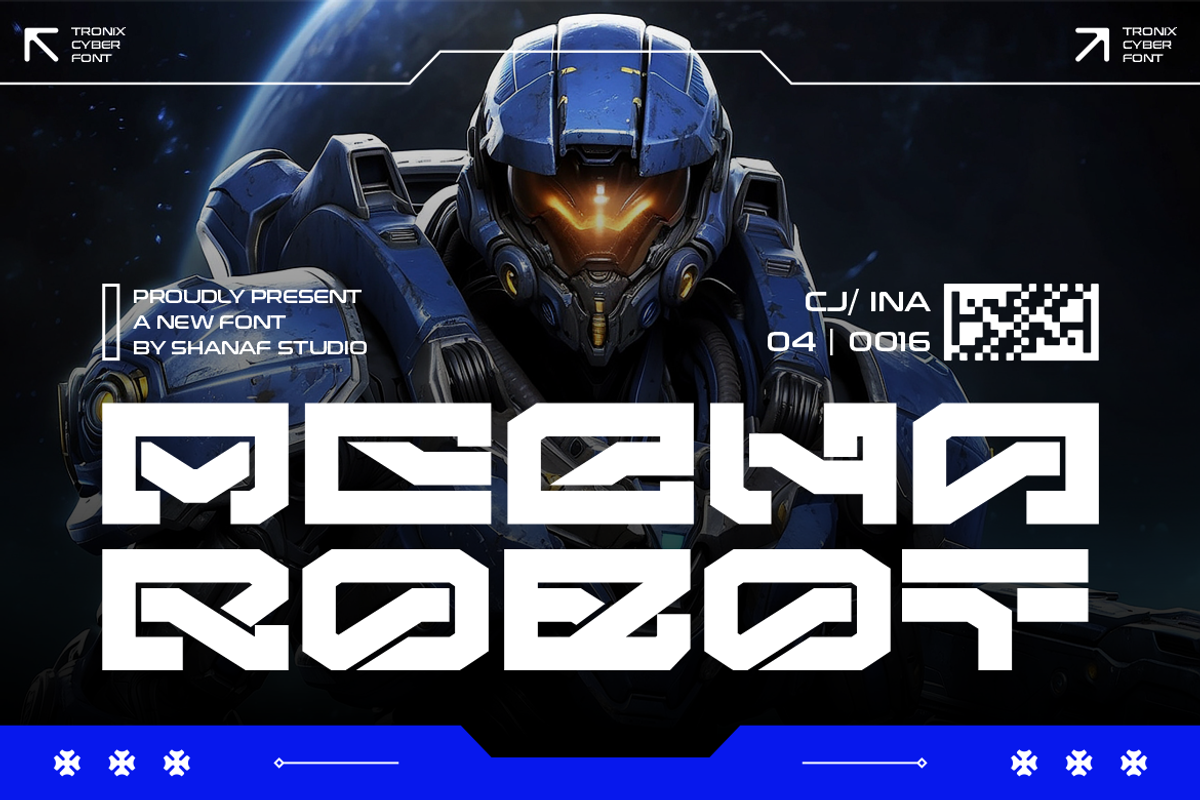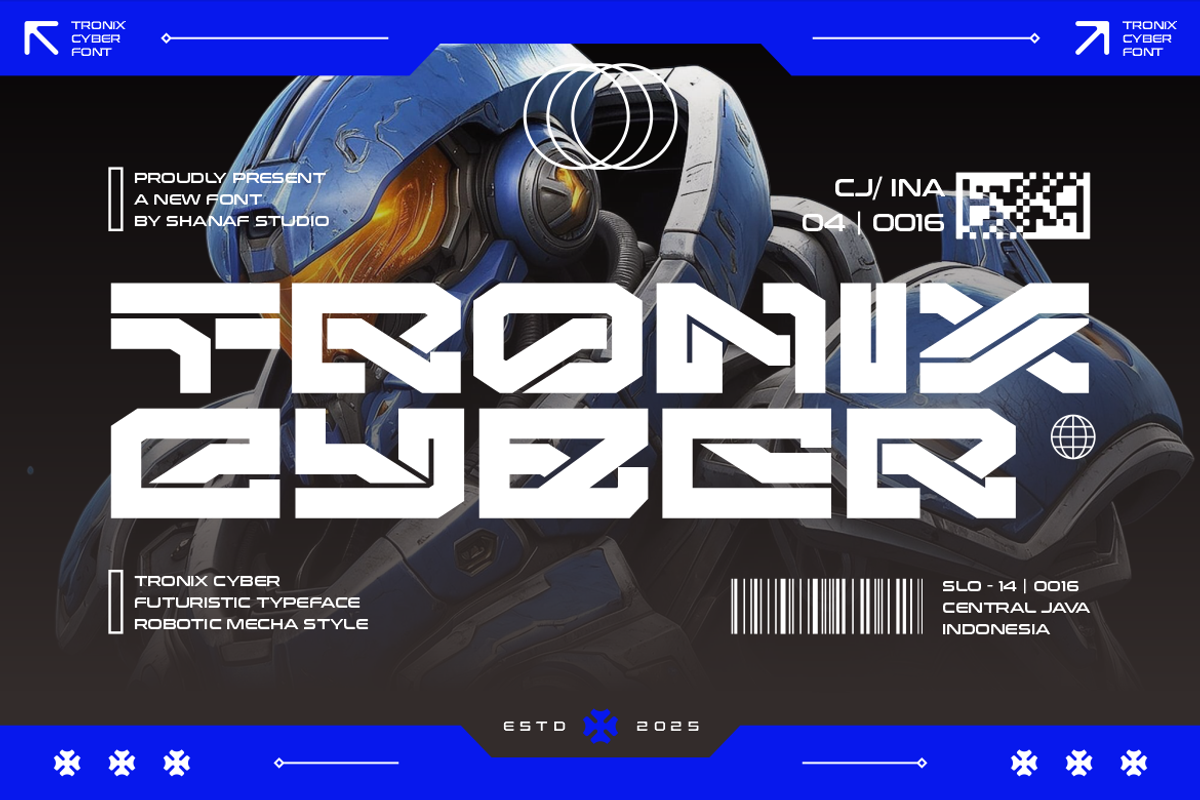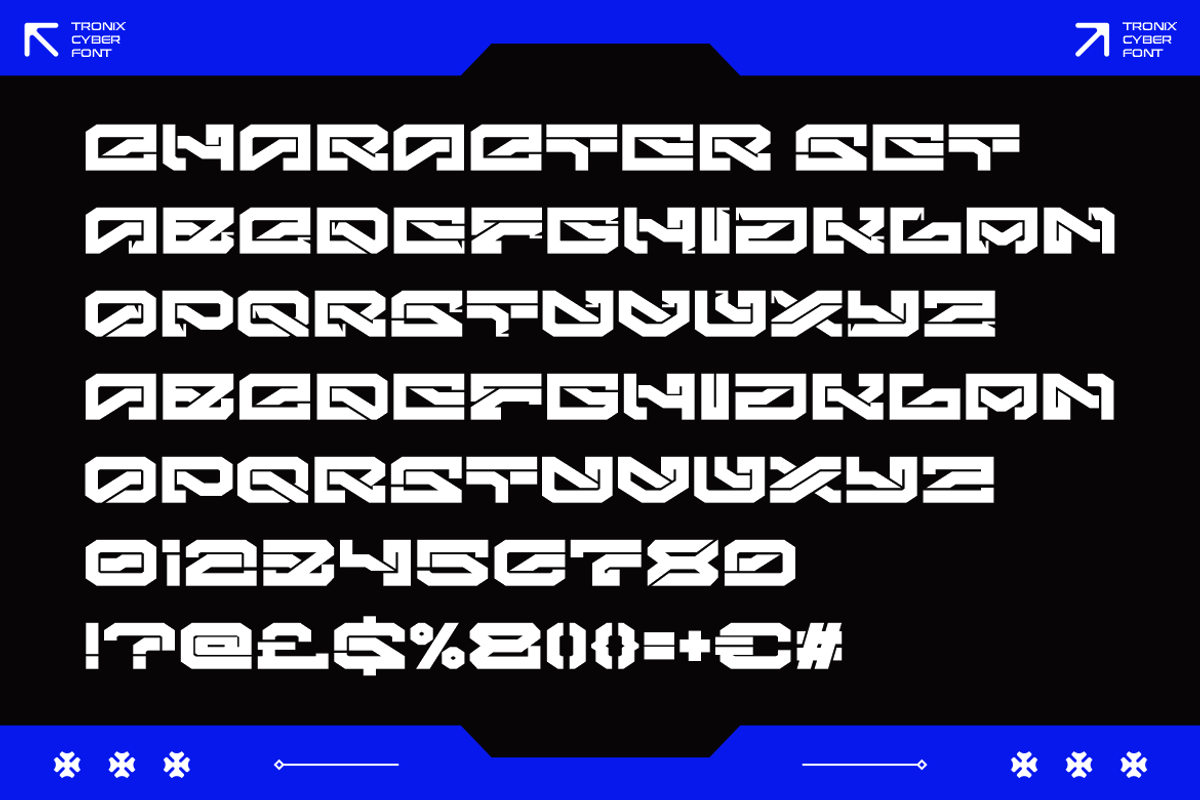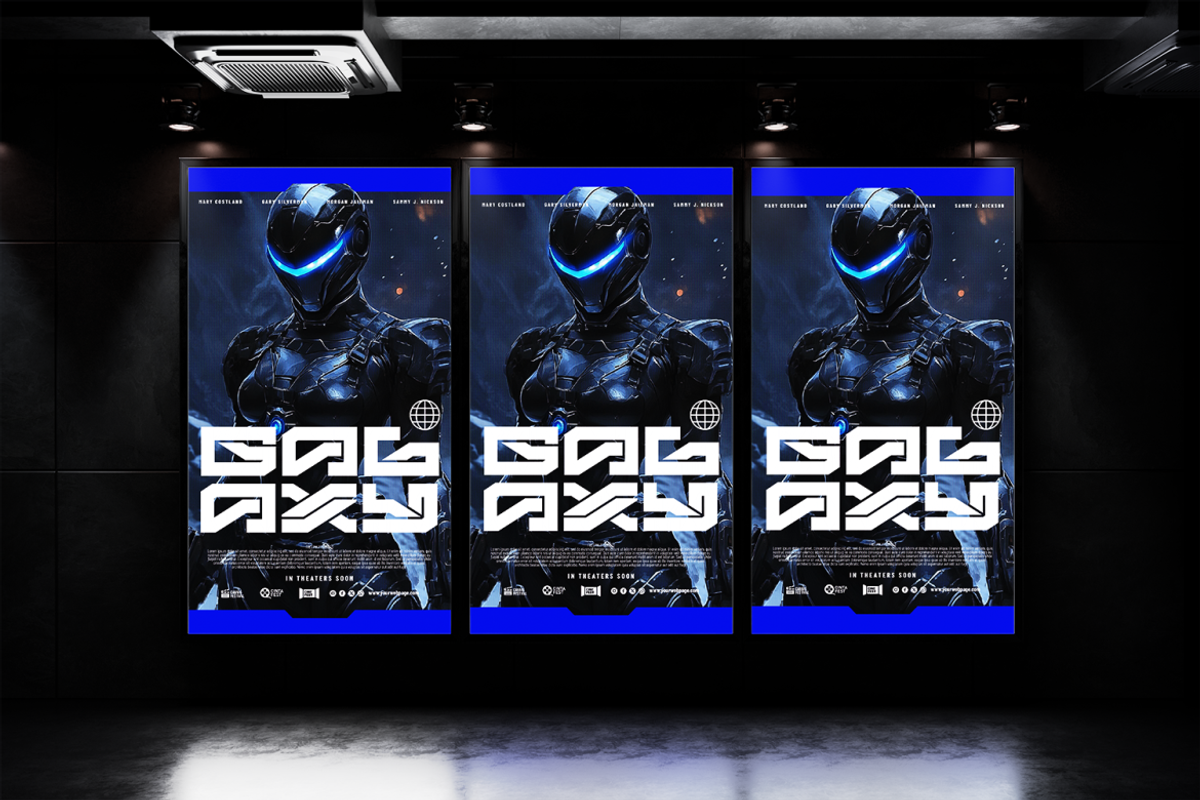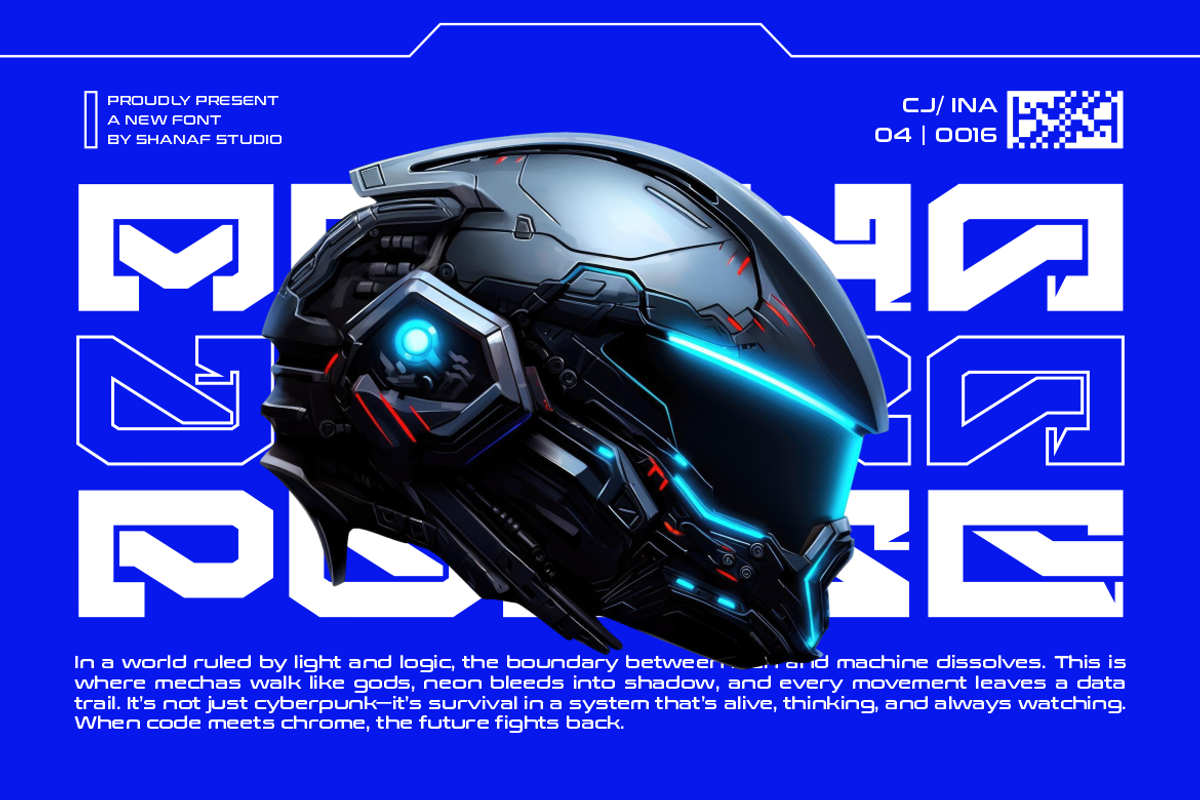
Tronix Futuristic Cyberpunk Mecha
Tronix Futuristic Cyberpunk Mecha Font is a bold display typeface inspired by the sharp lines of robotics, mecha suits, and futuristic sci-fi aesthetics. Each character is built with angular strokes and geometric edges, making the font feel mechanical and industrial while keeping a clean, modern design. The heavy weight and unique cutouts emphasize strength and structure, perfect for projects that need a commanding presence. The design reflects cybernetic systems and mecha armor plating, creating a perfect balance of technology and creativity. With its striking robotic appeal, Tronix is designed to capture attention and communicate innovation.
This font is ideal for futuristic posters, gaming titles, sci-fi movie covers, technology branding, cyberpunk logos, and modern packaging. It adapts seamlessly to both digital and print use, delivering a strong futuristic vibe in every layout. Tronix is not just a font but a design tool to bring cyber worlds, mecha-inspired designs, and techno visuals to life. Use it for posters, album art, magazines, or any project where bold futuristic style is essential.